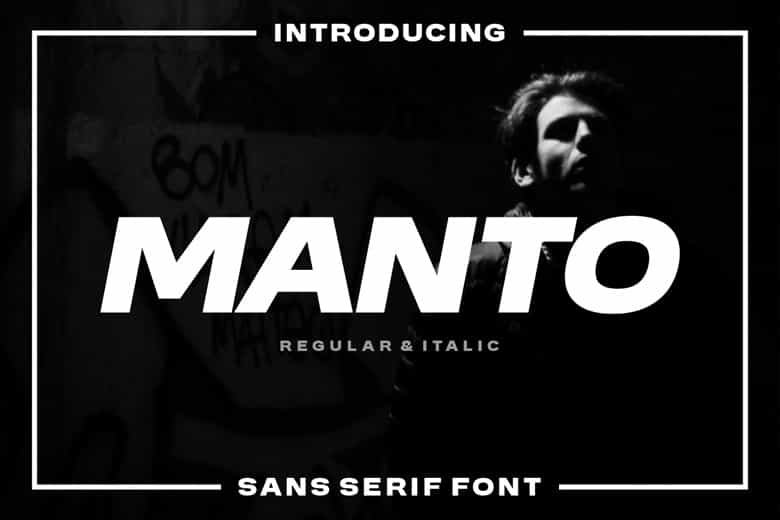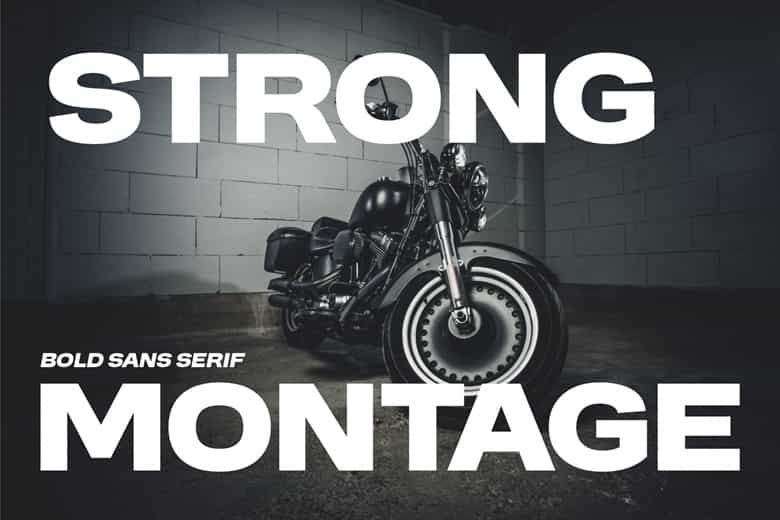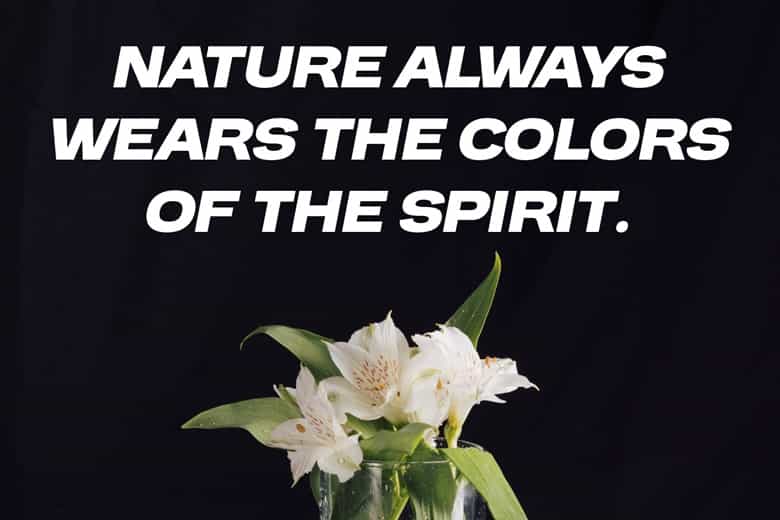
Manto is definite sans fonts with straight and clear font and thick stroke modern type of font. It’s clear and great for making titles, logos and any project where letters should be conspicuous.